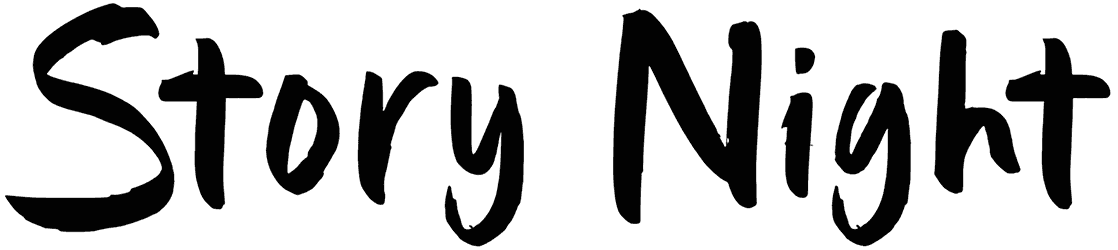
Story Night Font
Story Night is one of those spooky fonts that shows you how to creep people out without even being that terrifying. Guess there’s just something in its rough brushstrokes that gets to you. Isn’t that just what you came here looking for?
Let your words haunt people by asking Story Night to do the trick. That’s why we’re telling you that you need this brush font in your escape room website headers, fantasy book titles, horror movie posters, and everywhere scary.